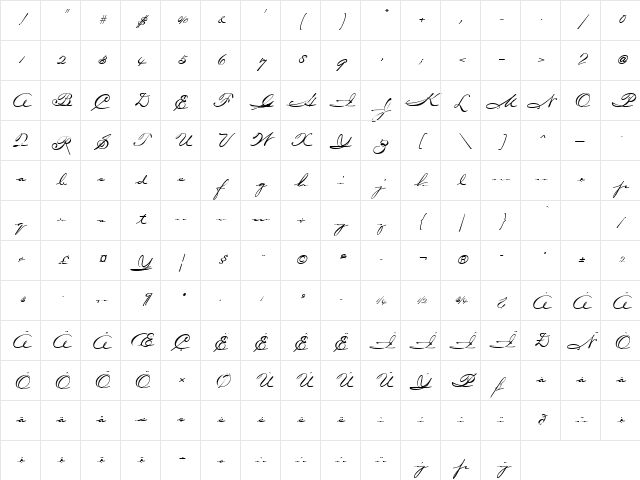
Complete CarpenterICG Medium glyph index. Displaying only characters natively supported by CarpenterICG Medium font.
CarpenterICG is a composed and adaptable typeface that performs quietly and consistently across a wide range of design contexts.